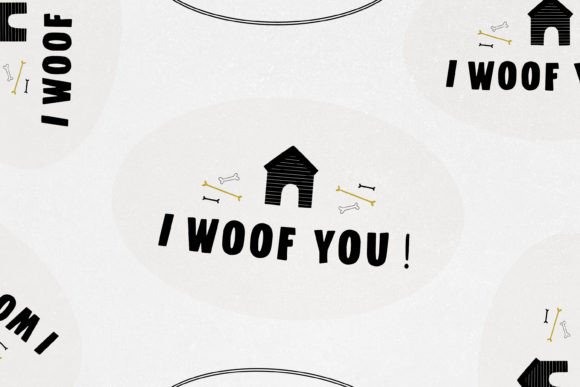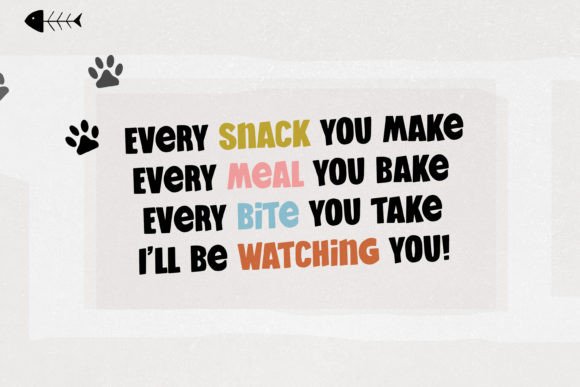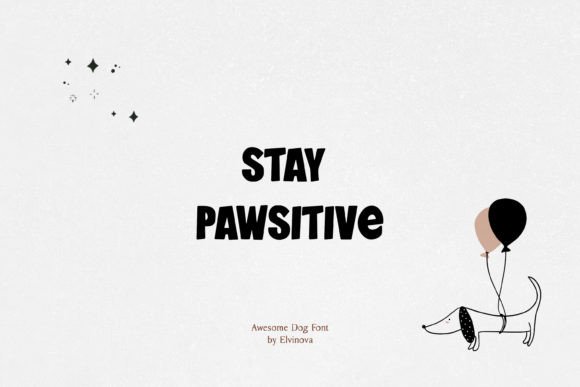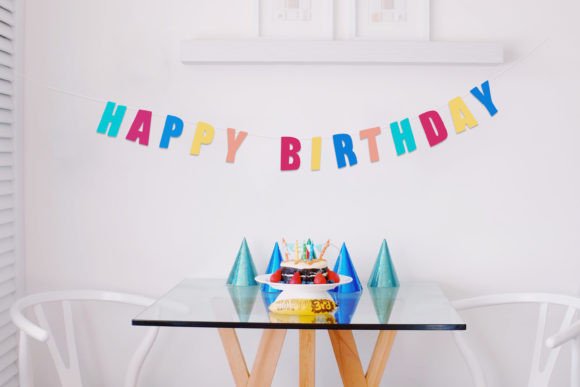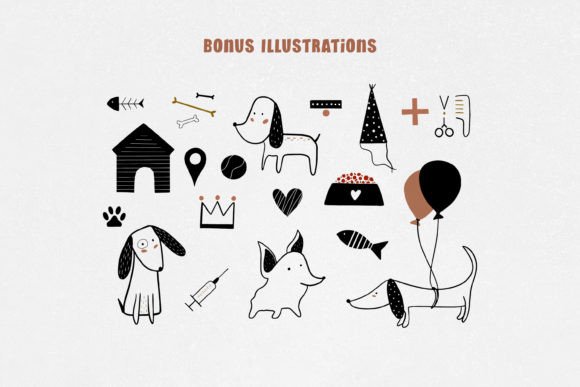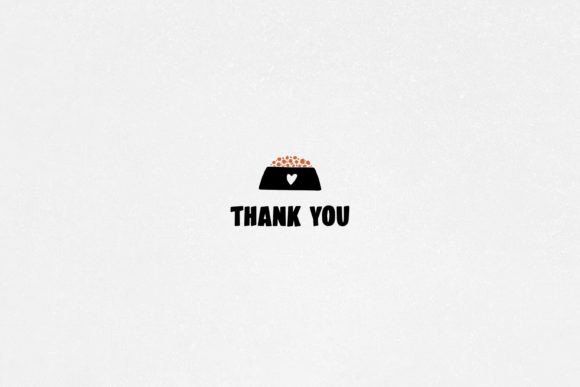
Awesome Dog Font: Unleash Your Creativity with this Playful Typeface
Are you a designer, crafter, or DIY enthusiast looking for a font that can add a dash of fun and personality to your projects? Look no further than the Awesome Dog Font! This playful typeface is designed to bring a smile to your face with its friendly and cheerful aesthetic. In this article, we’ll dive into the features and benefits of the Awesome Dog Font, and explore the many ways you can use it to unleash your creativity.
What is Awesome Dog Font?
Awesome Dog Font is a unique and charming typeface that’s perfect for anyone who wants to add a bit of whimsy to their designs. This font comes with a funny bonus illustration, which is sure to delight both kids and adults alike. The font is designed to be highly versatile, making it suitable for a wide range of projects, from greeting cards and quotes to kids’ books, cartoons, posters, t-shirt designs, social media graphics, and more.
Key Features of Awesome Dog Font
- Playful and Friendly Aesthetic: The Awesome Dog Font has a fun and approachable vibe that’s sure to capture the attention of your audience.
- Funny Bonus Illustration: The font comes with a delightful bonus illustration that’s perfect for adding a touch of humor to your designs.
- Highly Versatile: The font is suitable for a wide range of projects, from digital designs to print materials.
Uses for Awesome Dog Font
The Awesome Dog Font is perfect for a variety of projects, including:
- Greeting Cards: Add a personal touch to your greeting cards with this fun and playful font.
- Quotes and Inspirational Messages: Use the Awesome Dog Font to create inspiring and motivational quotes that will resonate with your audience.
- Kids’ Books: The font is perfect for creating engaging and interactive kids’ books that will delight young readers.
- Cartoons and Animations: The Awesome Dog Font is a great fit for cartoons and animations that require a fun and playful typeface.
- Posters and Flyers: Use the font to create eye-catching posters and flyers that will grab the attention of your audience.
- T-Shirt Designs: The font is perfect for creating fun and quirky t-shirt designs that will make you stand out.
- Social Media Graphics: Use the Awesome Dog Font to create engaging social media graphics that will help you connect with your audience.
Why Choose Awesome Dog Font?
There are many reasons why you should choose the Awesome Dog Font for your next project. Here are just a few:
- Unique and Eye-Catching: The font is designed to stand out and grab attention.
- Easy to Read: The font is clear and easy to read, making it perfect for both digital and print materials.
- Fun and Playful: The font has a fun and playful vibe that’s sure to delight your audience.
- High-Quality: The font is designed to be high-quality and professional, making it perfect for commercial use.
In conclusion, the Awesome Dog Font is a playful and versatile typeface that’s perfect for designers, crafters, and DIY enthusiasts. With its friendly and cheerful aesthetic, funny bonus illustration, and high level of versatility, this font is sure to unleash your creativity and help you create amazing projects. Whether you’re working on a greeting card, kids’ book, or social media graphic, the Awesome Dog Font is a great choice. So why wait? Download the Awesome Dog Font today and start creating!